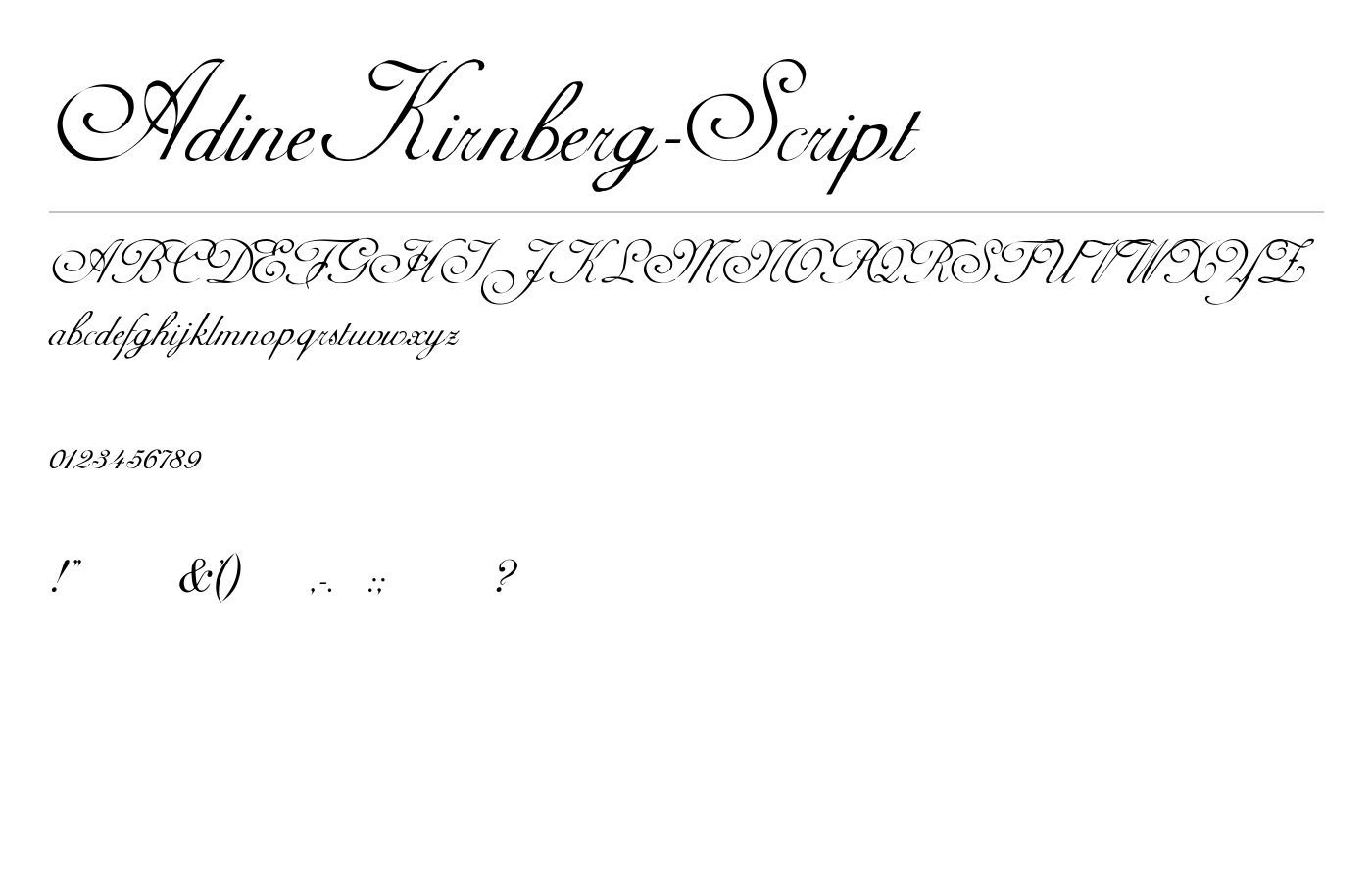
AdineKirnberg-Script is an elegant, refined script font characterized by fine, flowing strokes and high contrast between thick and thin lines. With its graceful swashes and delicate curves, it conveys a sophisticated, classic feel perfect for luxury branding, formal invitations, or editorial headlines. This font’s stylish, handwritten quality adds a touch of timeless charm to designs that seek to communicate elegance and tradition.
AdineKirnberg-Script Font